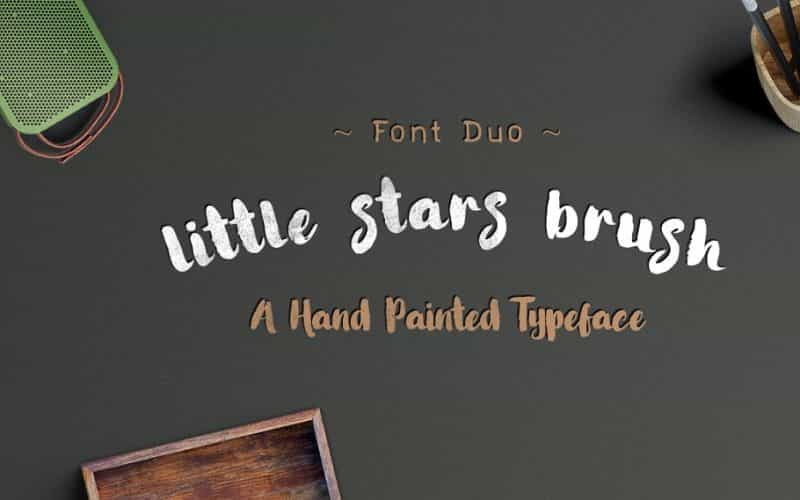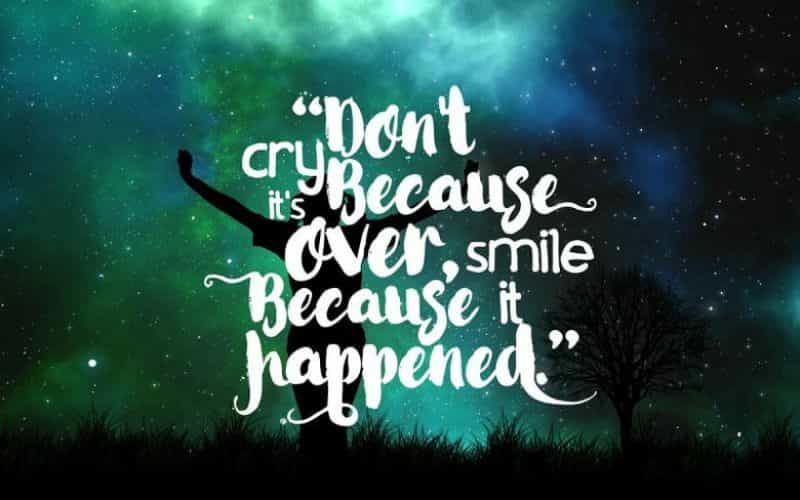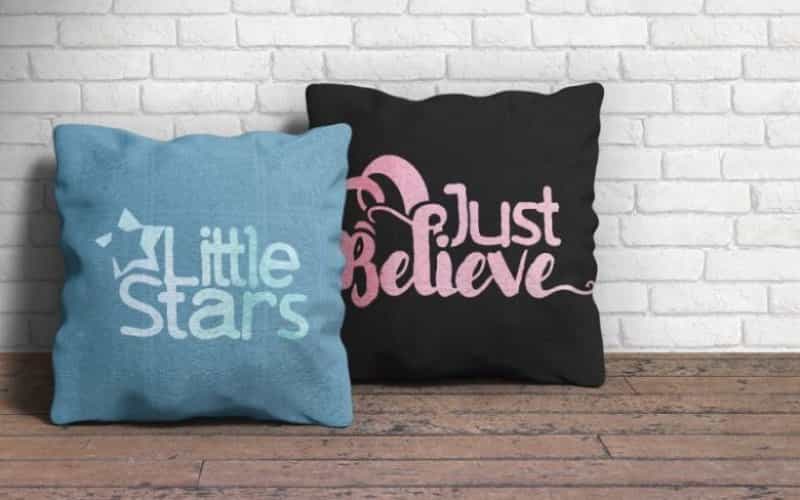
Discover Little Stars Brush Font, part of the Brush collection—a versatile and unique font perfect for adding a personal touch to your projects. Download it for free and enjoy crafting designs with style, from invitations to social media posts. This font is available exclusively for personal use, giving you the freedom to create without limits. Unlock your creativity with Little Stars Brush Font today!
Hello there.. Now Present Little Stars Font Duo. Little Stars Font Duo is a bold hand brush, modern Brush font, which was created to meet the needs of your next design project. Little Stars Font Duo, Can be used for various purposes. such as the title, logos, correspondence, wedding invitations, letterhead, signage labels, newsletters, posters, badges, T-shirt, and more.